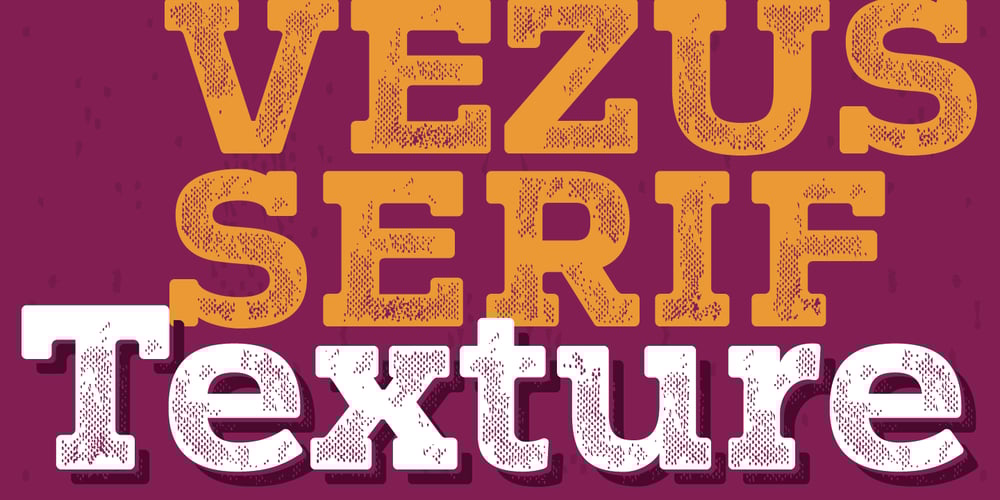
Vezus Serif Texture Font Family was designed by Slobodan Jelesijevic and published by Tour De Force. Vezus Serif Texture contains 2 styles and family package options. Vezus Serif Texture is as the name says itself, textured version of Vezus Serif font family and as that, it’s compatible with Vezus Serif Black. It is adviced to be used as desktop font only.